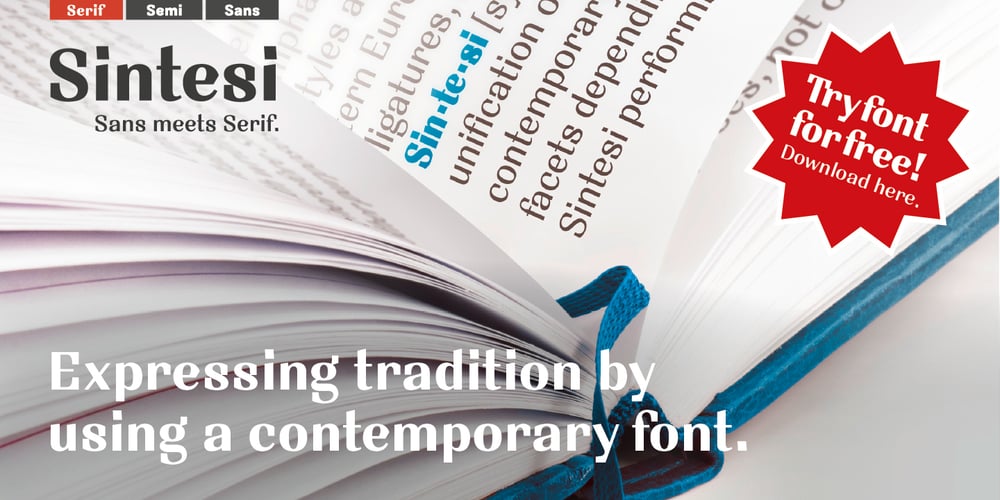
Sintesi Serif Font Family was designed by Filippo Salmina and published by FSdesign-Salmina. Sintesi Serif contains 22 styles and family package options. Sans meets serif. Would you like to express tradition by using a contemporary font? Sintesi might be exactly what you are looking for. Sintesi stands for synthesis: the unification of serif and sans-serif into a contemporary font, which surprises with different facets depending on its application. In copy size Sintesi performs like a sans-serif. It is a compact and well readable font that fulfills all requirements of modern digital media. In larger sizes, Sintesi unfolds its traditional character. Now, its strong contrast and the perceptible feather-ductus stand out clearly, as we appreciate it in a historical old style face. Sintesi is completed by a suitable italic. Its cursive character has more to do with writing-speed than to moderate inclination. Therefore Sintesi may be well-suited for many other purposes, not only for emphasis. The whole font family consists of 20 styles and offers a wide range of Western and Eastern European special characters, typographical ligatures, uppercase, oldstyle and fraction figures. Sintesi (Serif) builds together with Sintesi Semi and Sintesi Sans an extended family. Start combining antiquity with modernity! Download a free trial version of Sintesi with a reduced character set. Check it out!